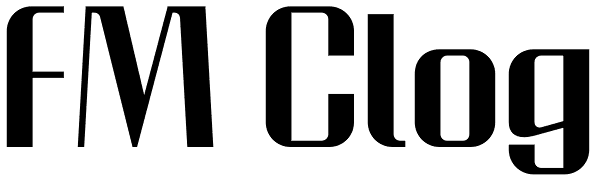
FM Clog
The Clog font family is represented by four different outlines - Normal, Open Face, Shadowed and Engraved. Each of them could be your best choice when designing a wine label, package or magazine headline. By using Open Face and Shadowed outlines you...
FM Clog Engraved
FM Clog
FM Clog Shadowed
FM Clog Openface